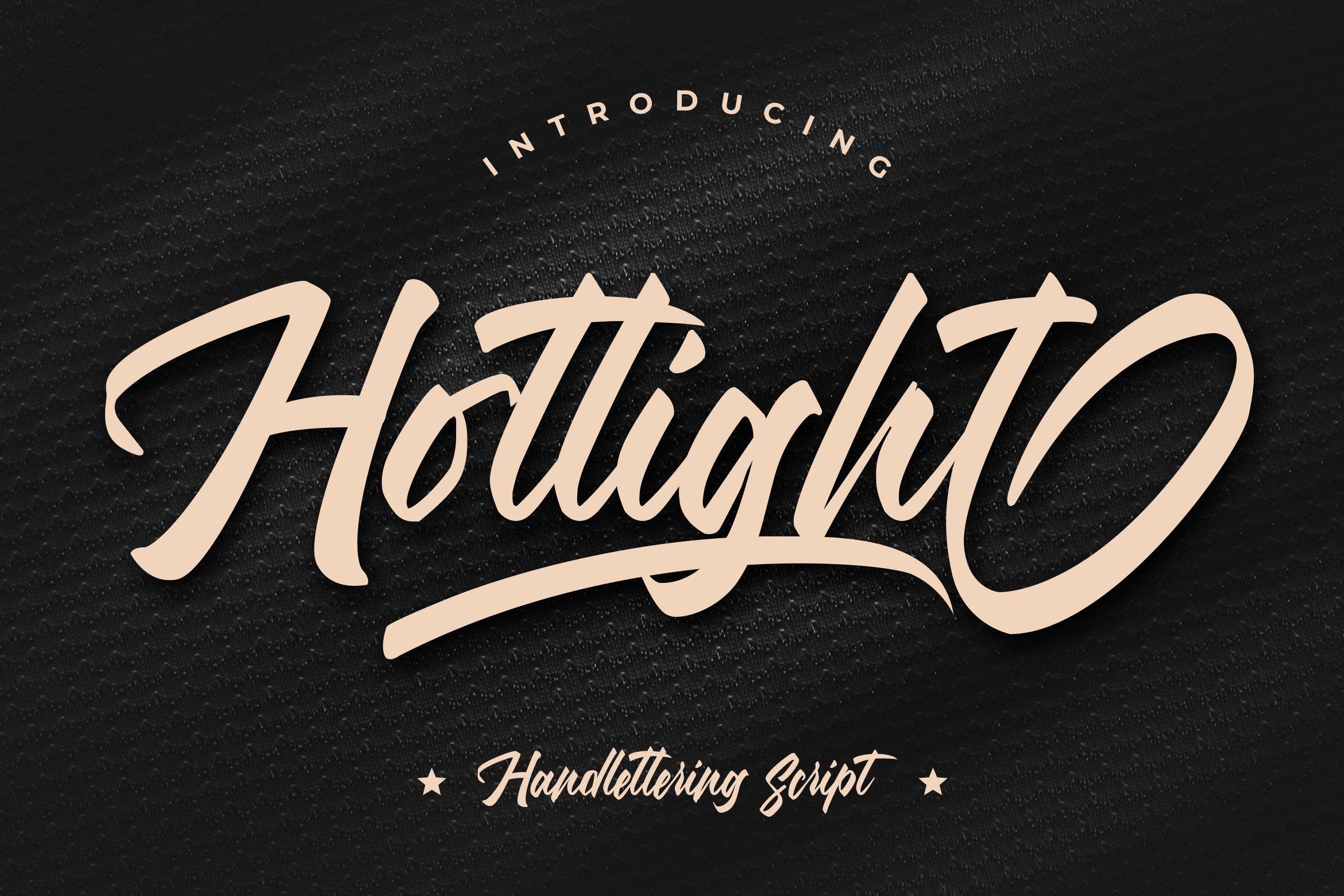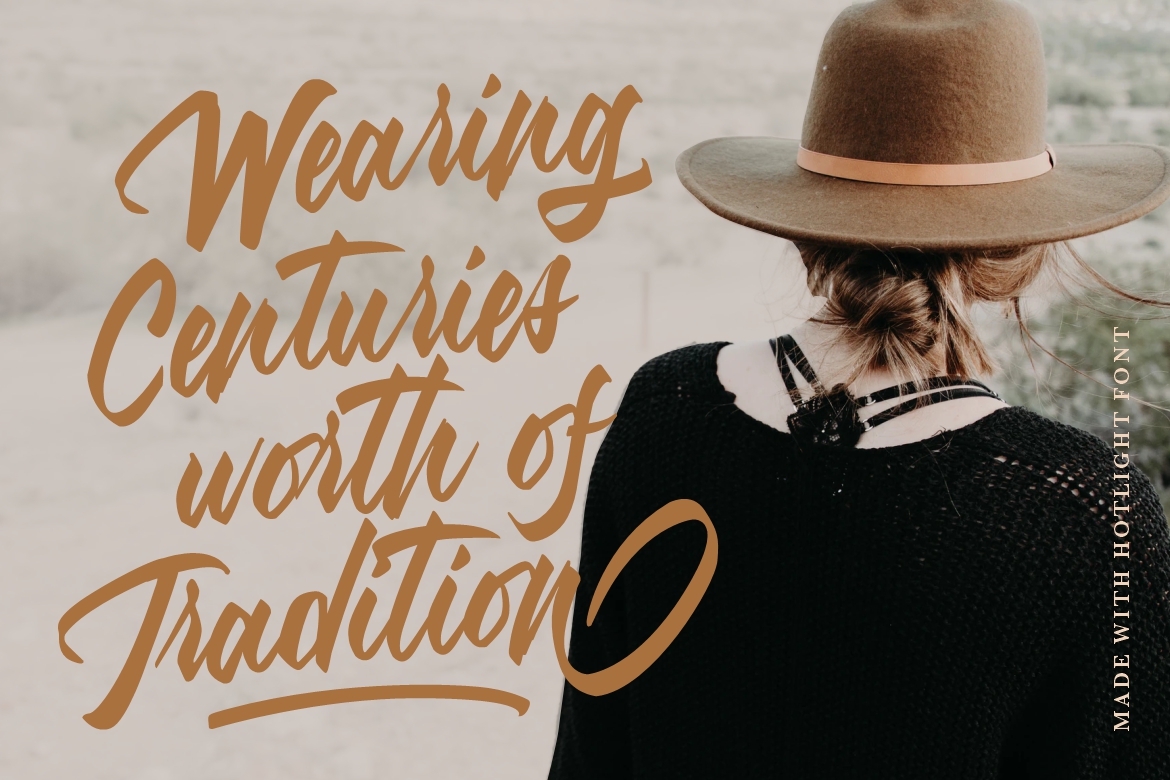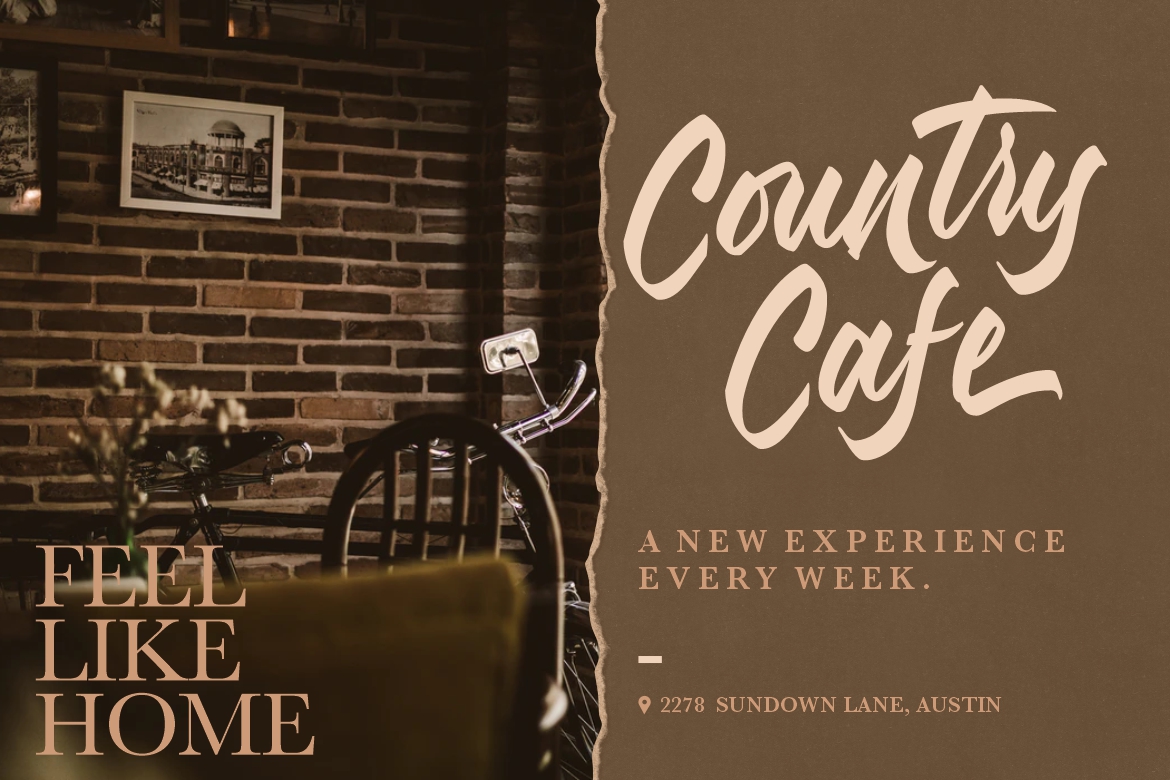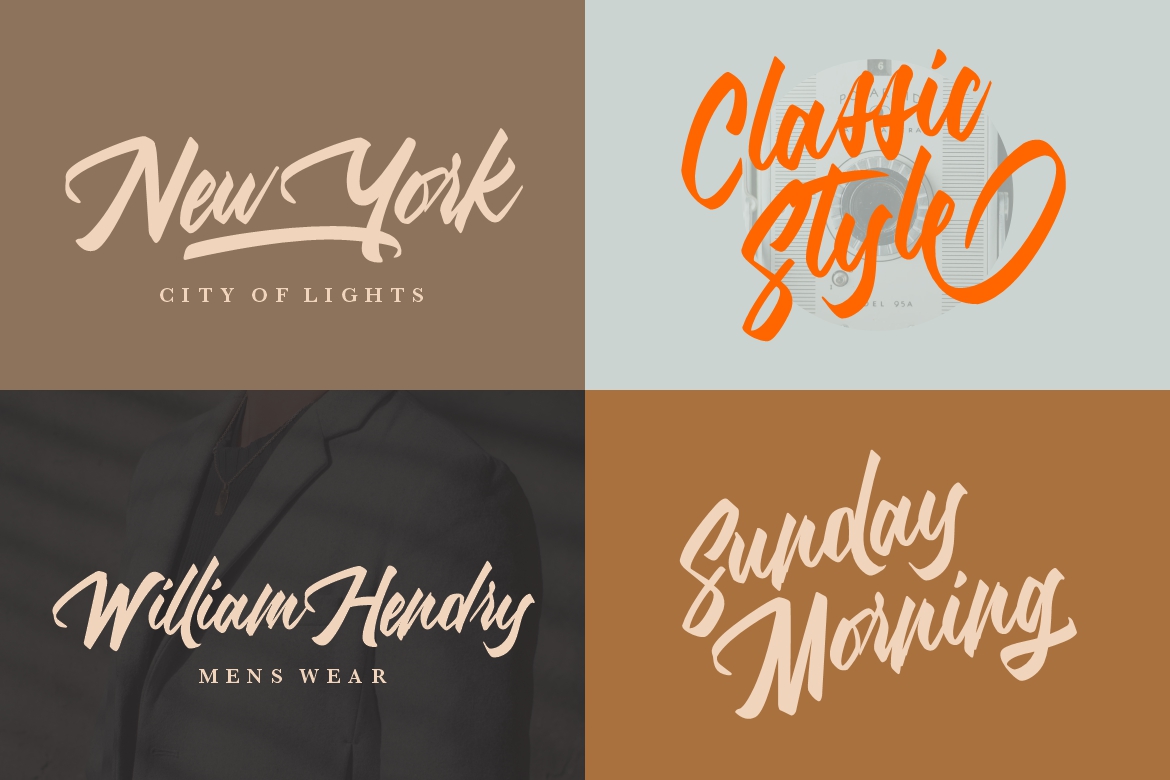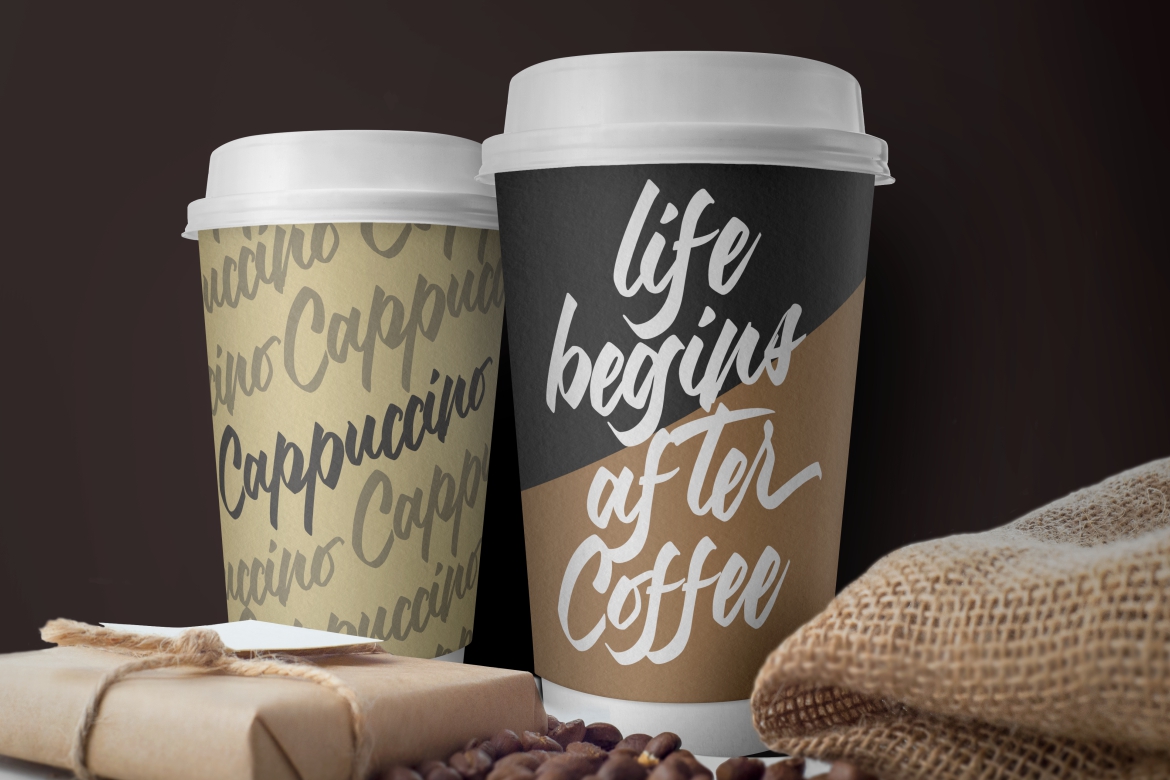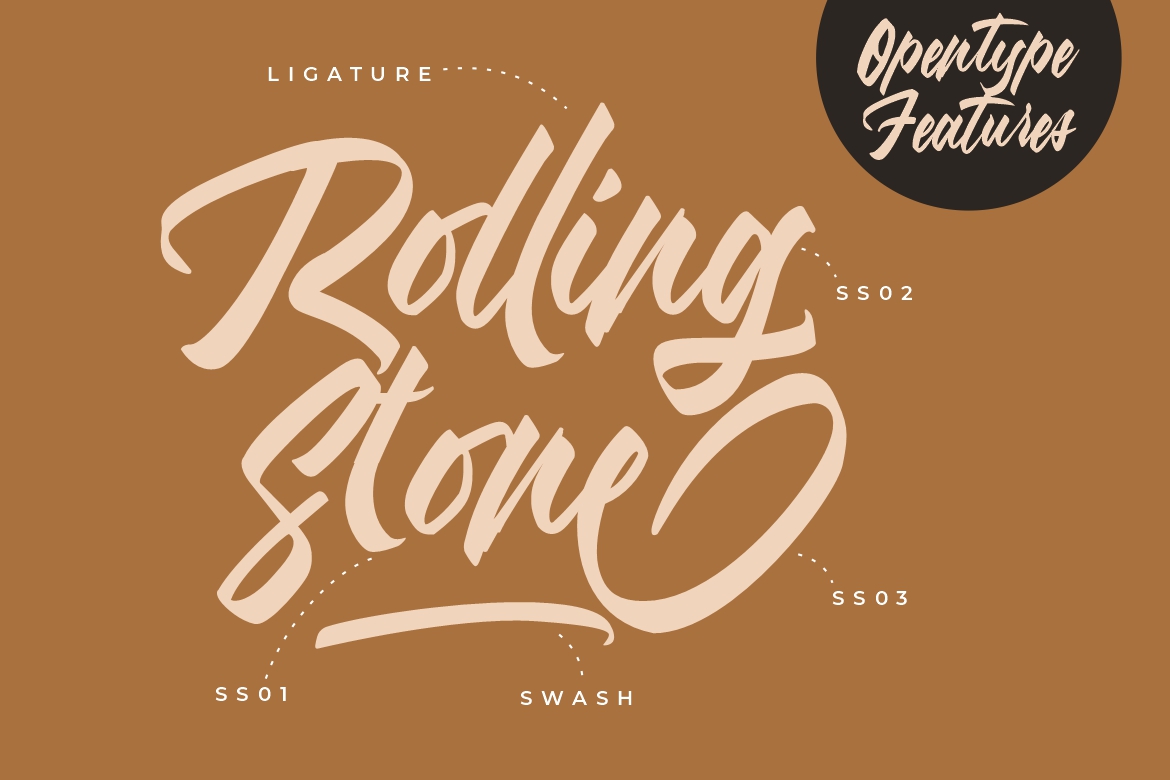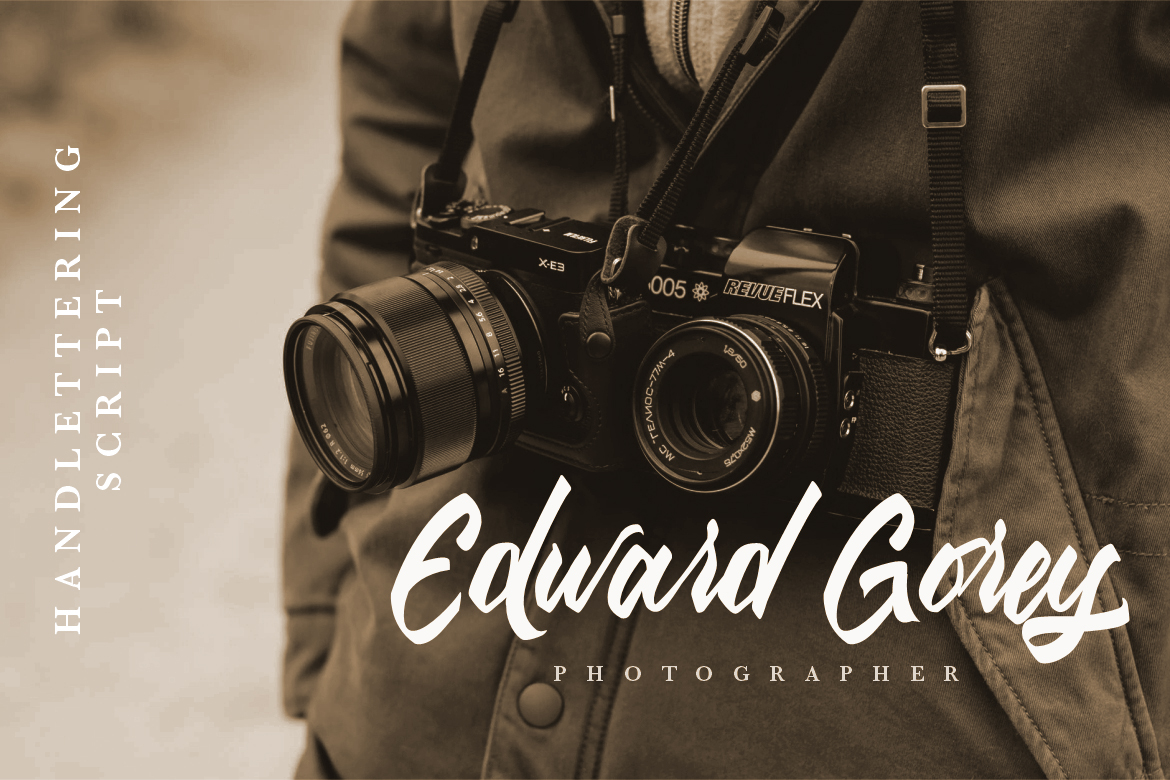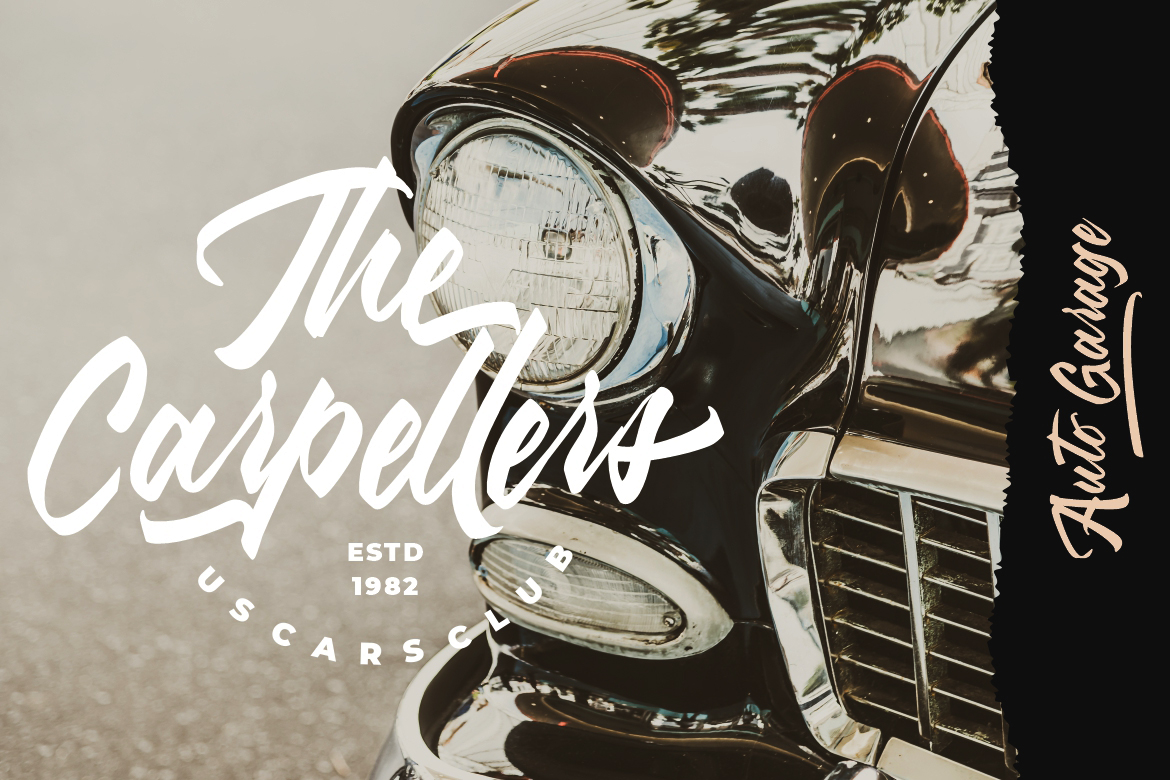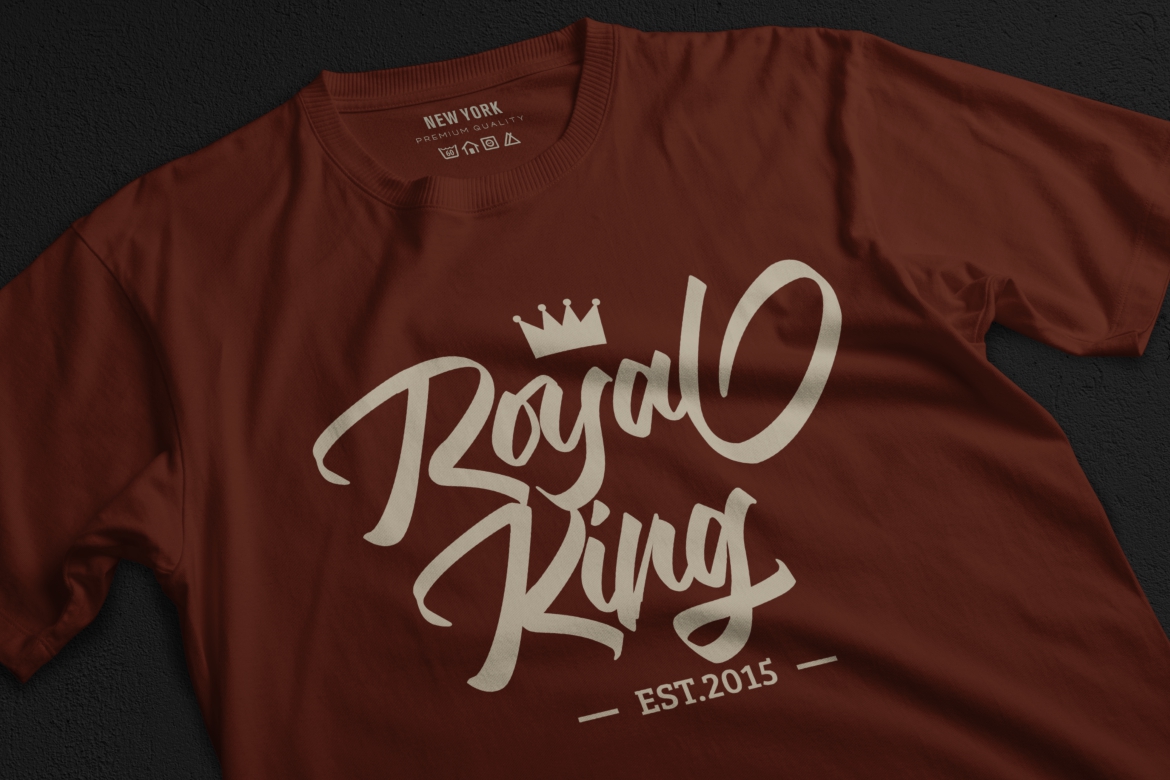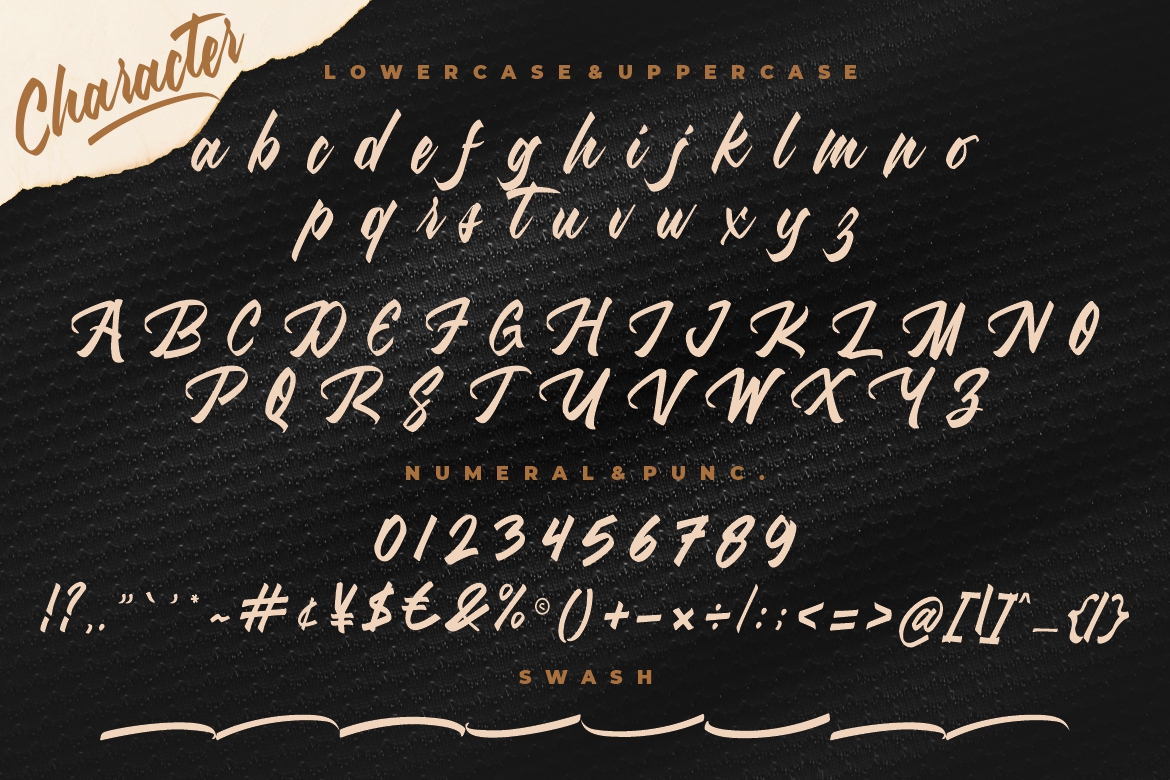
Hotlight Handlettering Business Font
Introducing Hotlight Handlettering Script – A stylish & modern handletter script typeface. This font will looks awesome and amazing in many way to your latest project.. The font is perfect for for movie title, logo, blogging, brand identity, book title, social media, branding, wedding invites, cards or simply use it in your next design project and suitable to use for many occasion.